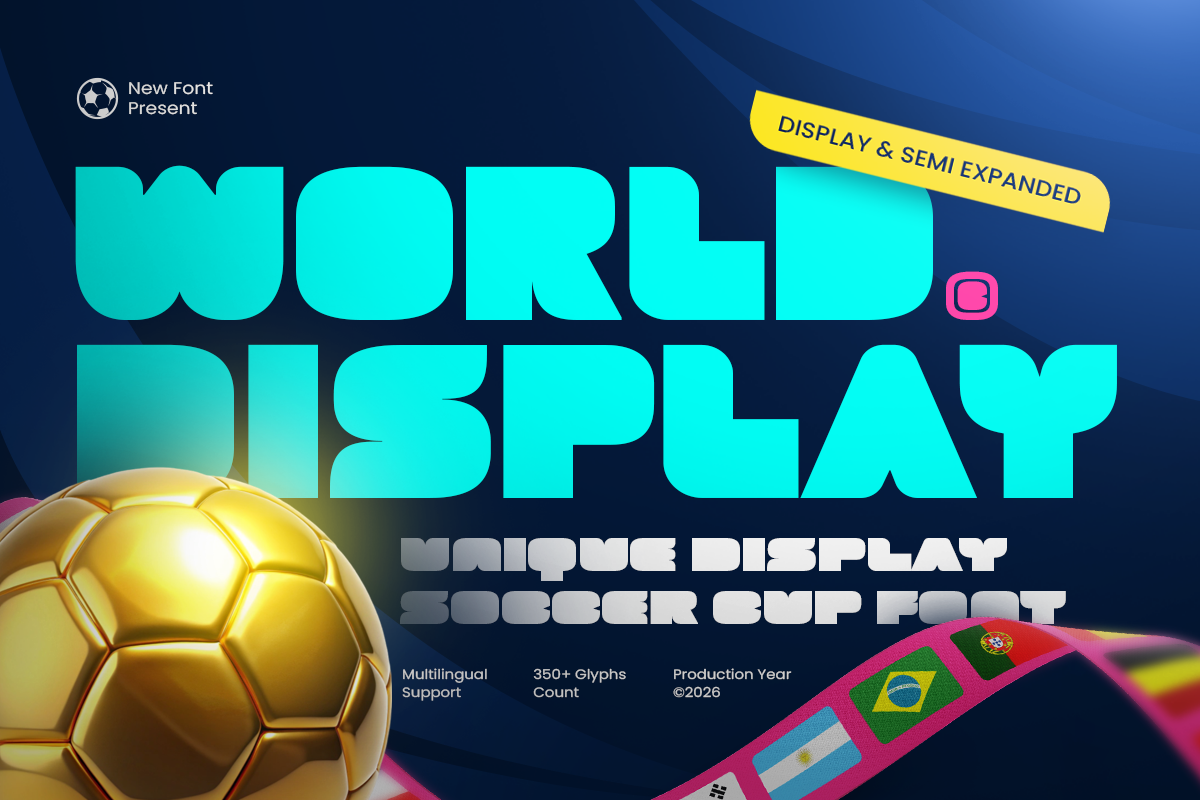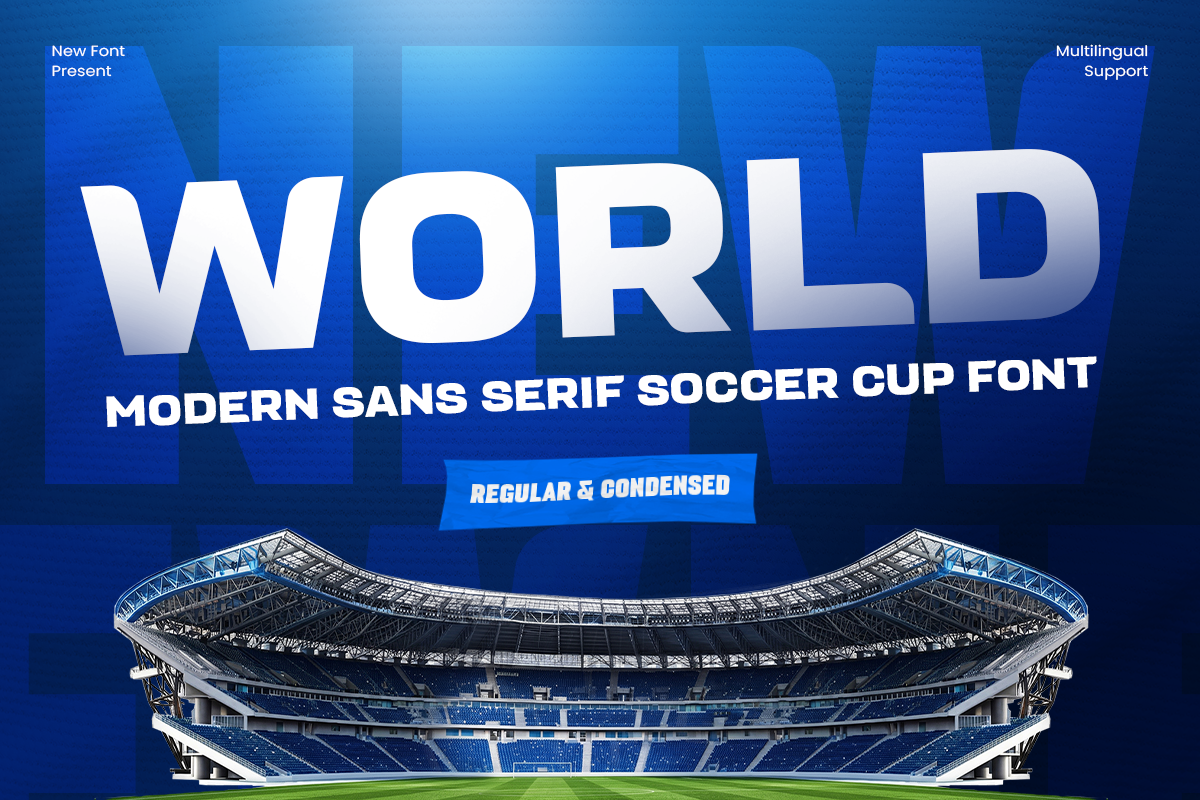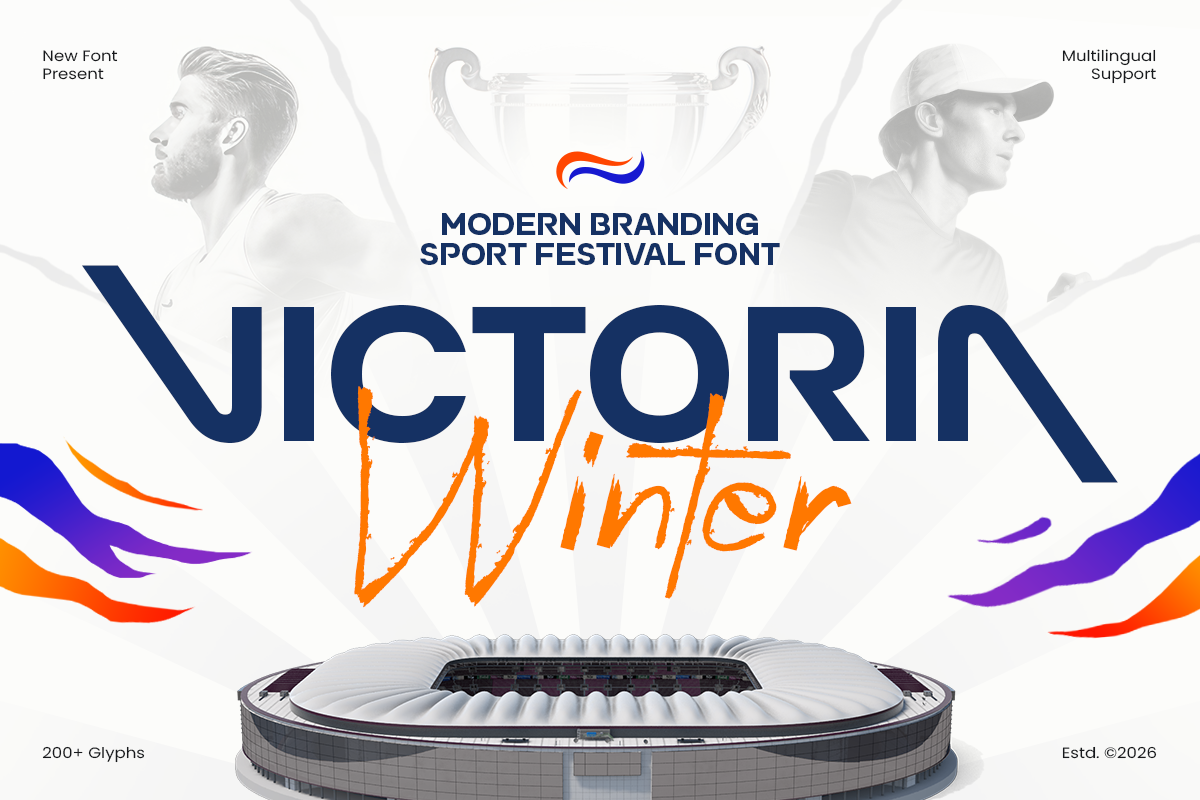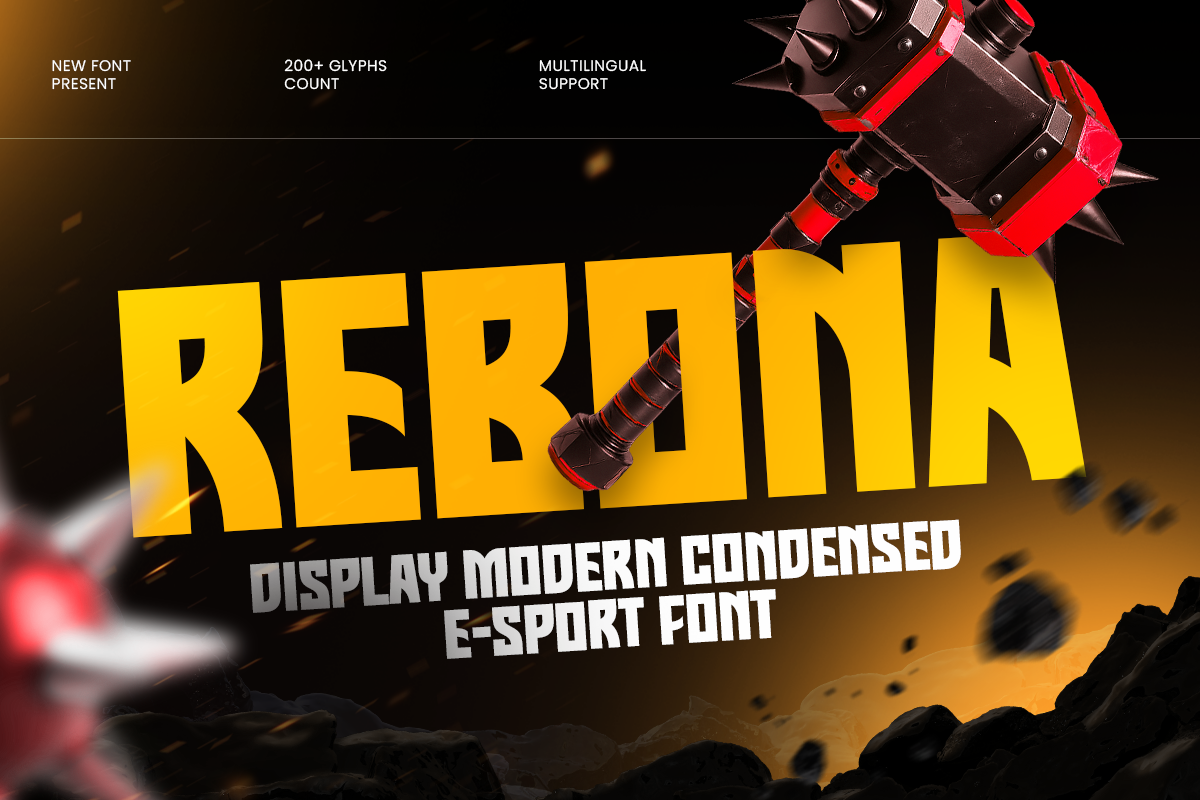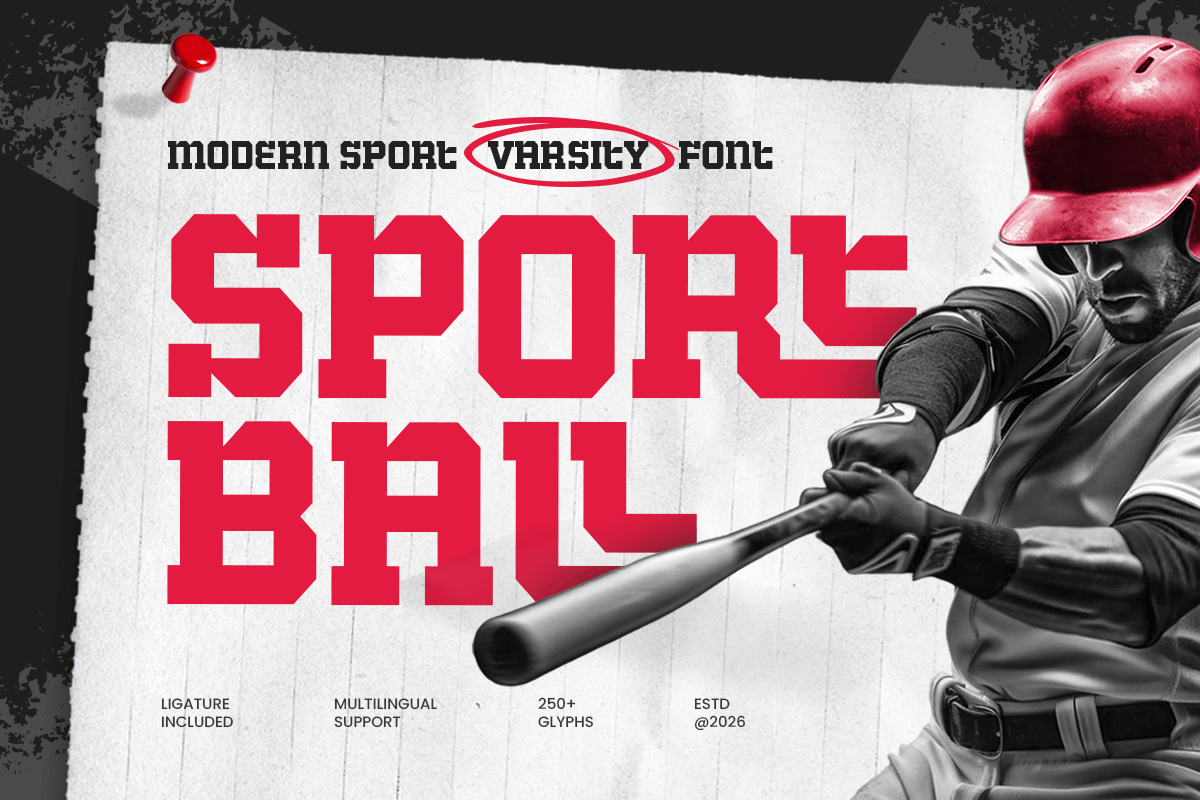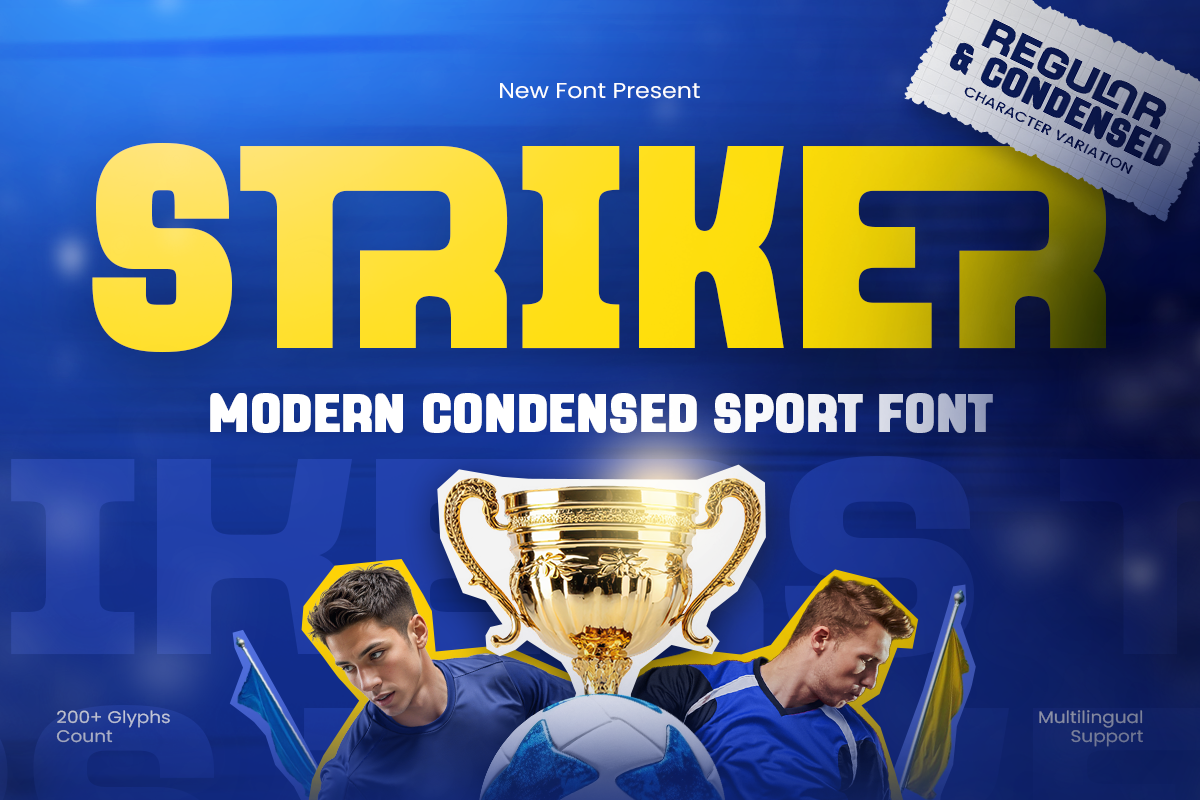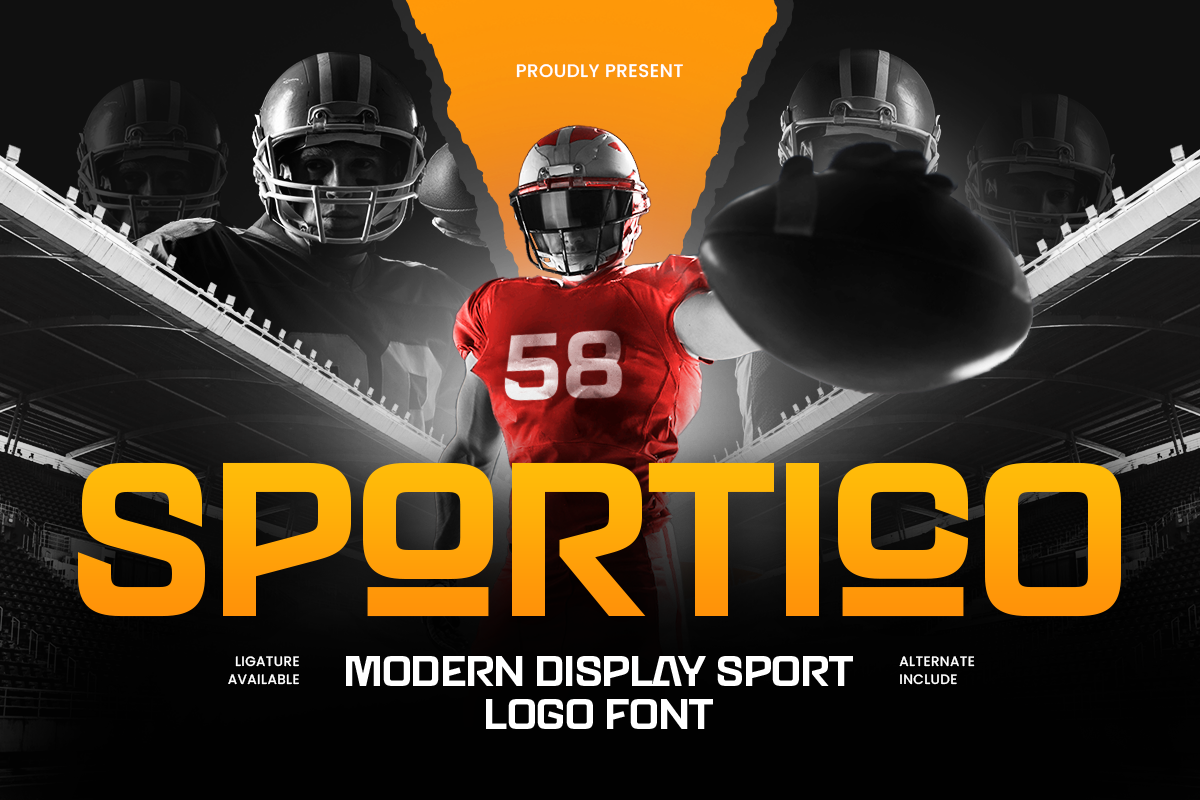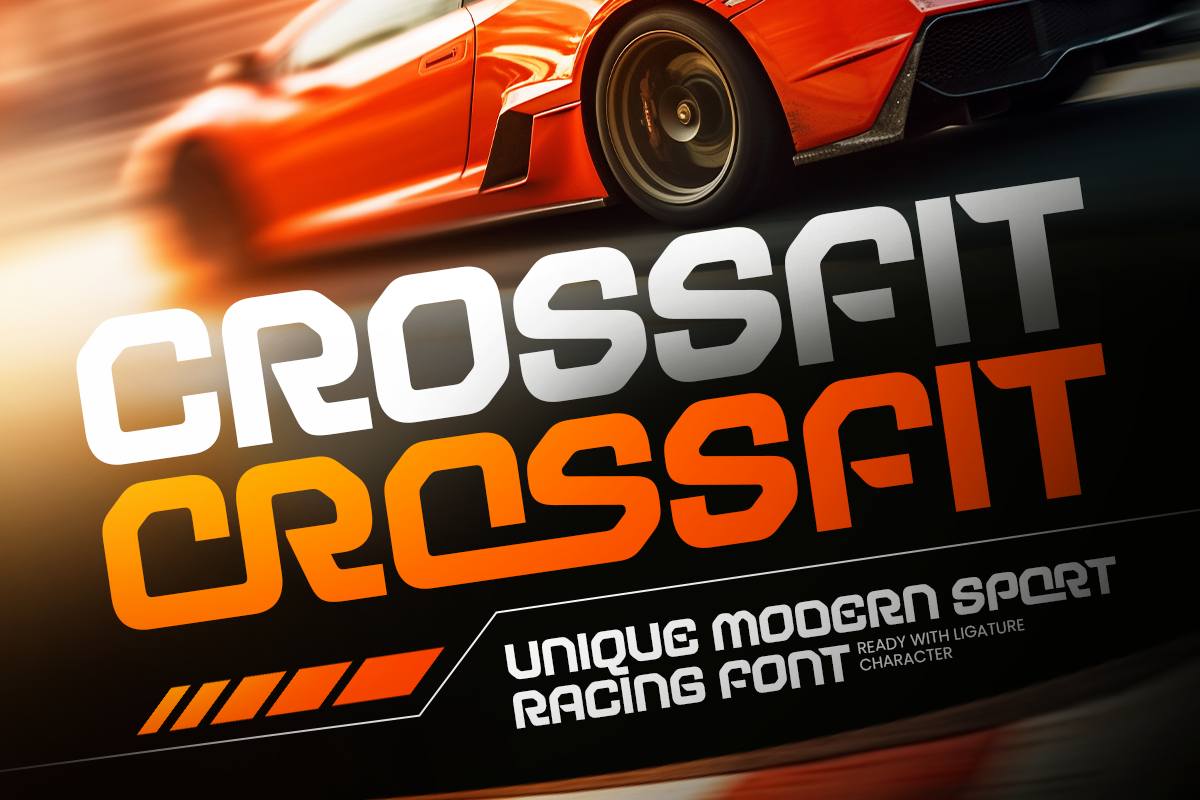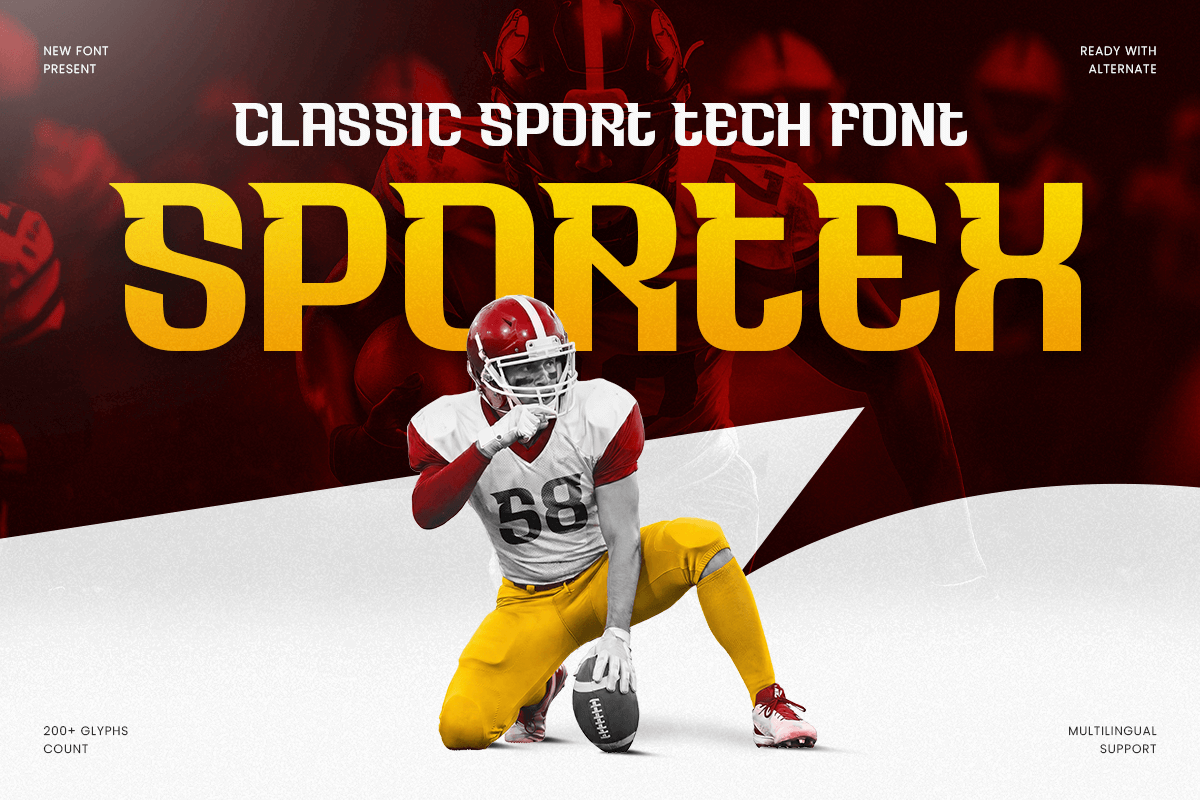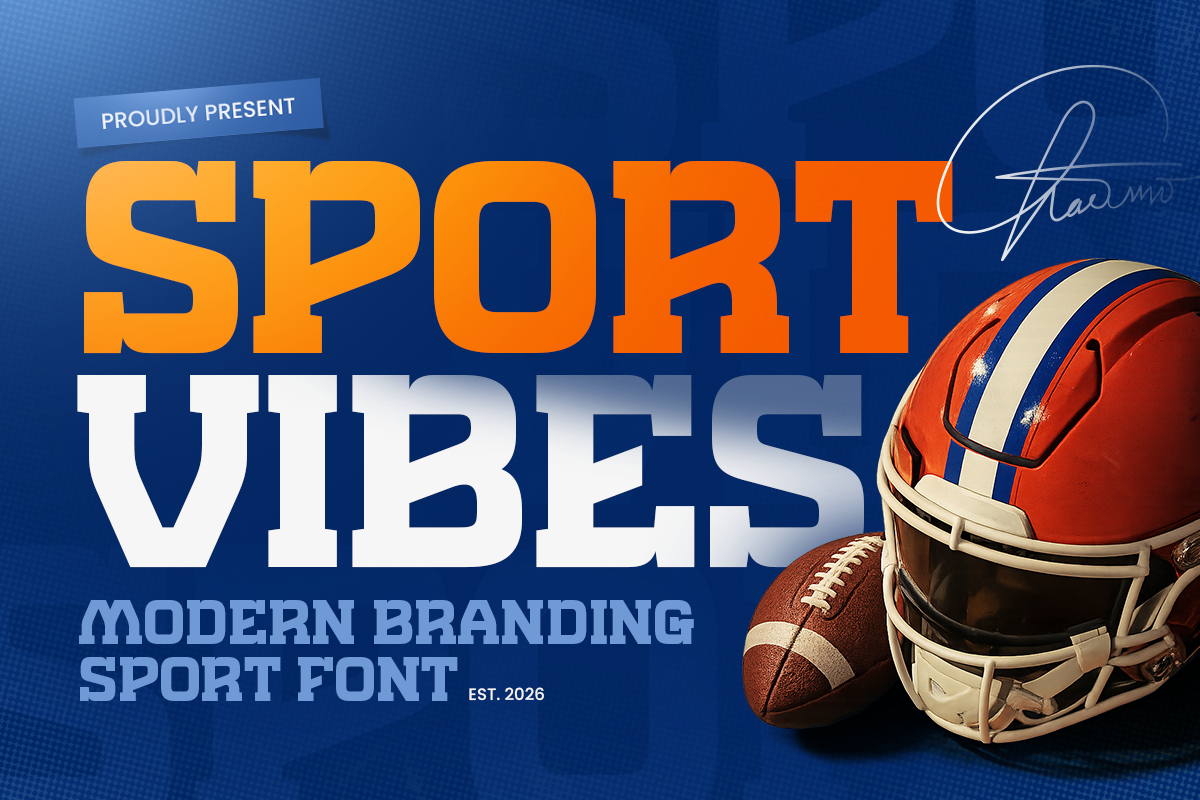
Top 10+ Best Fonts for Sports Branding
Discover the best fonts for sports branding, from bold racing fonts and modern soccer typefaces to varsity, techno, and esports fonts. This guide highlights powerful sports fonts from Sensatype Studio that are perfect for team logos, jersey graphics, tournament posters, fitness branding, event promotions, and high-energy athletic campaigns.
Top 10+ Best Fonts for Sports Branding
Typography plays a huge role in shaping how a team, event, or athletic brand feels at first glance. It adds power to the overall design, gets you a professional look, and make the team’s name and numbers more memorable for the fans. The right sports font can make a design look stronger, faster, more competitive, and more memorable.
Choosing the best sports fonts involves considering several factors, such as the type of lettering needed whether for jerseys, banners, or other uses. It’s important to select fonts that not only align with your team’s spirit but are also versatile enough to look great in various sizes, from large banners to small social media icons.
A strong sports branding font should feel bold, readable, dynamic, and full of motion. It needs to work across many formats, from large stadium banners to small social media posts. In this article, we will explore some of the best fonts from Sensatype Studio for sports branding that can help designers build powerful and professional athletic visuals.
What Makes a Good Sports Branding Font?
Before choosing a font, it is important to understand what makes a typeface suitable for sports branding. Sports design usually needs typography that can communicate confidence, speed, power, and team spirit.
A good sports font usually has strong letterforms, clear readability, bold proportions, and a distinctive personality. It should look impactful when used as a headline, but still remain clean enough for logos, jerseys, posters, and promotional graphics. As such, most traditional fonts won’t do when it comes to sports marketing. You’ll want something that gives you action and energy.
For example, a football poster may need a tall condensed font that feels fast and competitive. A championship event may need a bold display font with a grand and energetic look. A gym or fitness brand may work better with a clean sans serif font that feels modern and professional. The best sports fonts are not just decorative. They help build identity.
Top 10+ Best Fonts for Sports Branding
Sportino - Racing Bold Sport Font
Sportino is a bold racing sport font designed to bring speed, strength, and high-energy impact to sports branding. It is perfect for motorsport logos, racing posters, fitness campaigns, tournament graphics, and competitive sports visuals.
Sport Vibes - Modern Branding Sport Font
Sport Vibes is a modern sports branding font with a bold, clean, and athletic personality. This font works well for team logos, fitness branding, event banners, sports posters, social media graphics, and professional athletic campaigns.
Crossfit - Modern Sport Racing Font
Crossfit is a modern sport racing font with sharp rhythm, bold structure, and fast visual energy. It is ideal for racing posters, gym branding, sports logos, fitness campaigns, team identities, and high-impact promotional designs.
Victoria Winter - Modern Sport Festival Font
Victoria Winter is a bold sport festival font made for energetic and competitive visual branding. It is a great choice for championship graphics, tournament posters, sports event branding, promotional banners, and athletic marketing campaigns.
World - Modern Sans Serif Soccer Cup Font
World is a modern soccer cup font with a clean sans serif style and strong athletic rhythm. It is perfect for football branding, team logos, tournament posters, championship graphics, sports campaigns, and soccer-themed promotional designs.
Striker - Modern Tall Sport Font
Striker is a tall sport font designed to create strong vertical impact and competitive energy. It works beautifully for player posters, matchday graphics, jersey-style layouts, football branding, and bold sports headlines.
World Display - Creative Football Cup Font
World Display is a creative football cup font with bold character and tournament-ready energy. It is suitable for football posters, championship branding, tournament campaigns, fan graphics, sports headlines, and event promotions.
Coach - Display Logo Branding Font